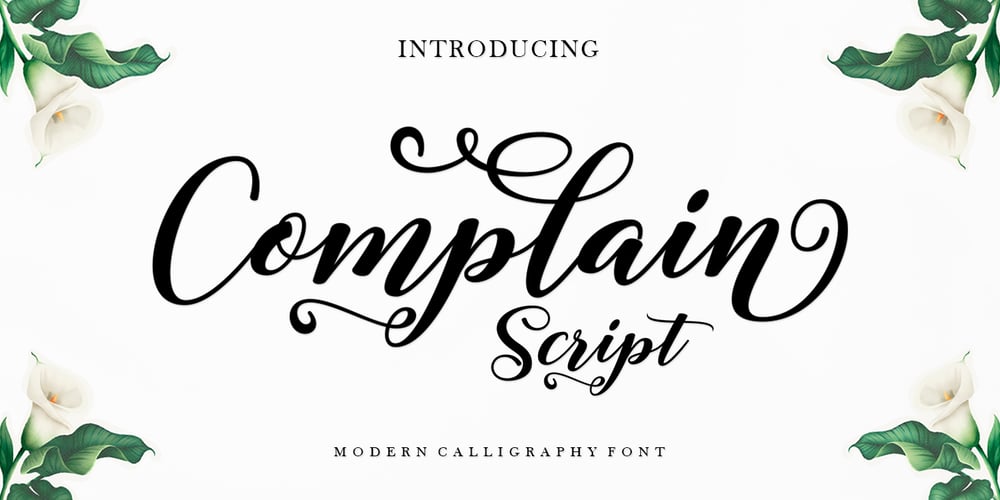
Complain Script Font Family was designed by Imam Muhajir and published by Straight.Co. Complain Script contains 1 styles and family package options. Complain Script is a great script font, including Regular. This font is casual and pretty with a stroke. Can be used for various purposes. such as logos, product packaging, wedding invitations, branding, headlines, signage, labels, signatures, book covers, posters, quotes and others.ComplainScript featuring OpenType style alternatives, ligatures and International support for most Western Languages is included. To enable the OpenType Stylistic alternative, you need a program that supports OpenType features such as Adobe Illustrator CS, Adobe Indesign & CorelDraw X6-X7, Microsoft Word 2010 or later. How to access all alternative characters using Adobe Illustrator:https://www.youtube.com/watch?v=XzwjMkbB-wQComplain Script is encoded with PUA Unicode, which allows full access to all additional characters without having to design special software. Mac users can use Font Book , and Windows users can use Character Map to view and copy any additional characters to paste into your favorite text editor/application. How to access all alternative characters, using the Windows Character Map with Photoshop: